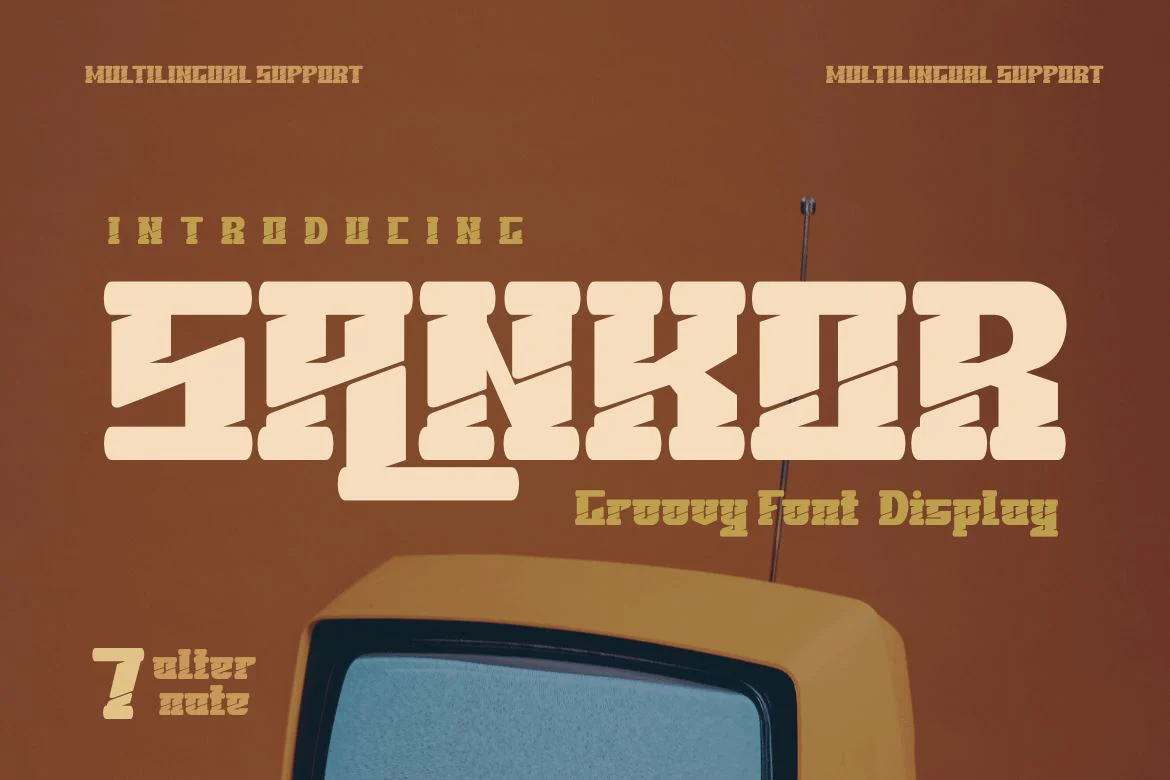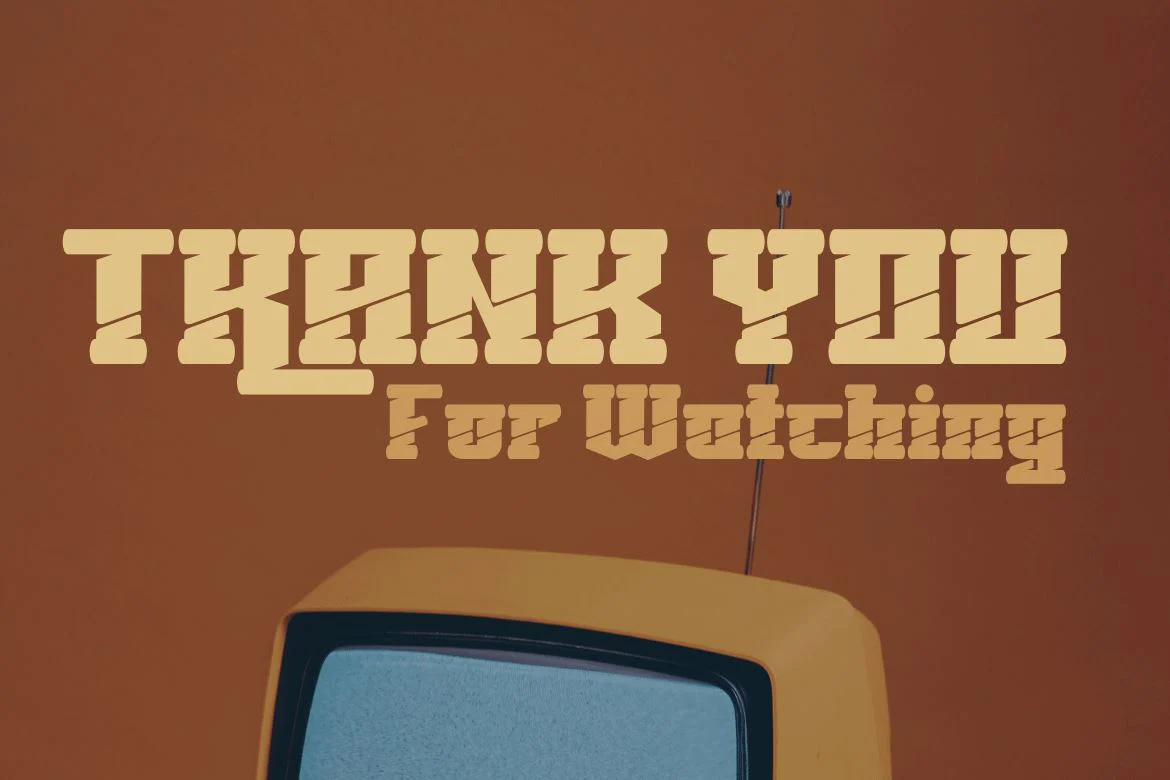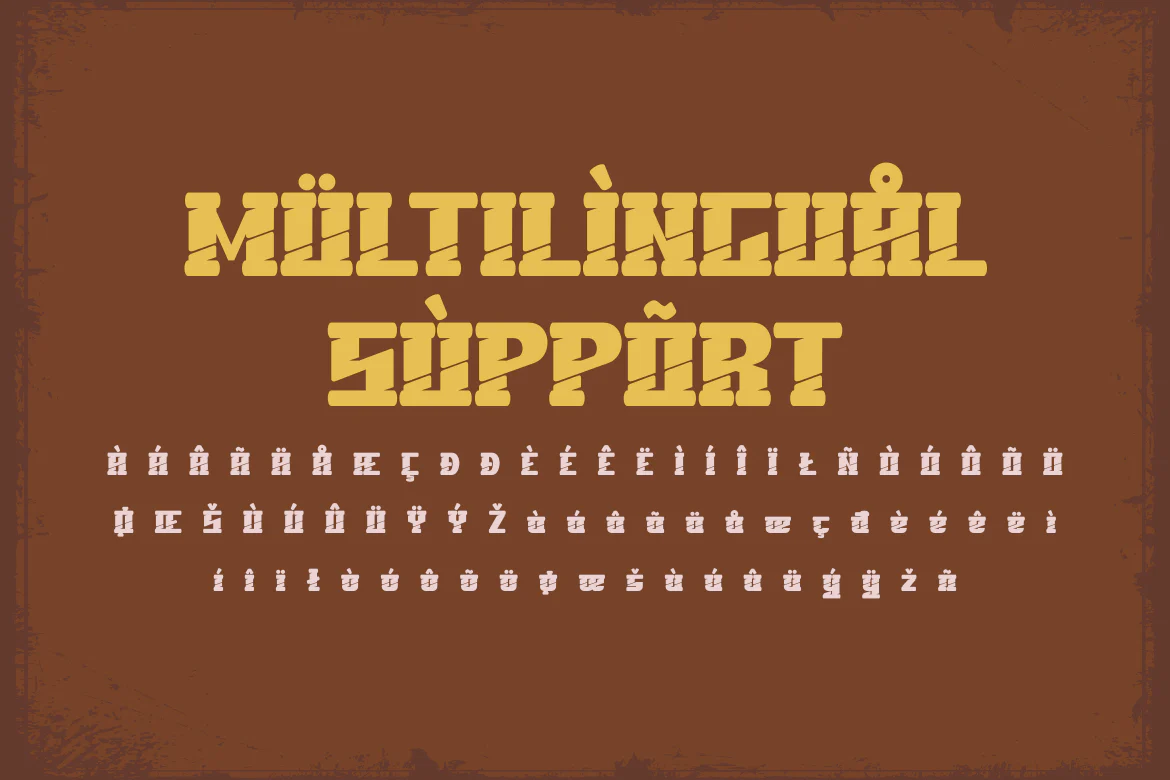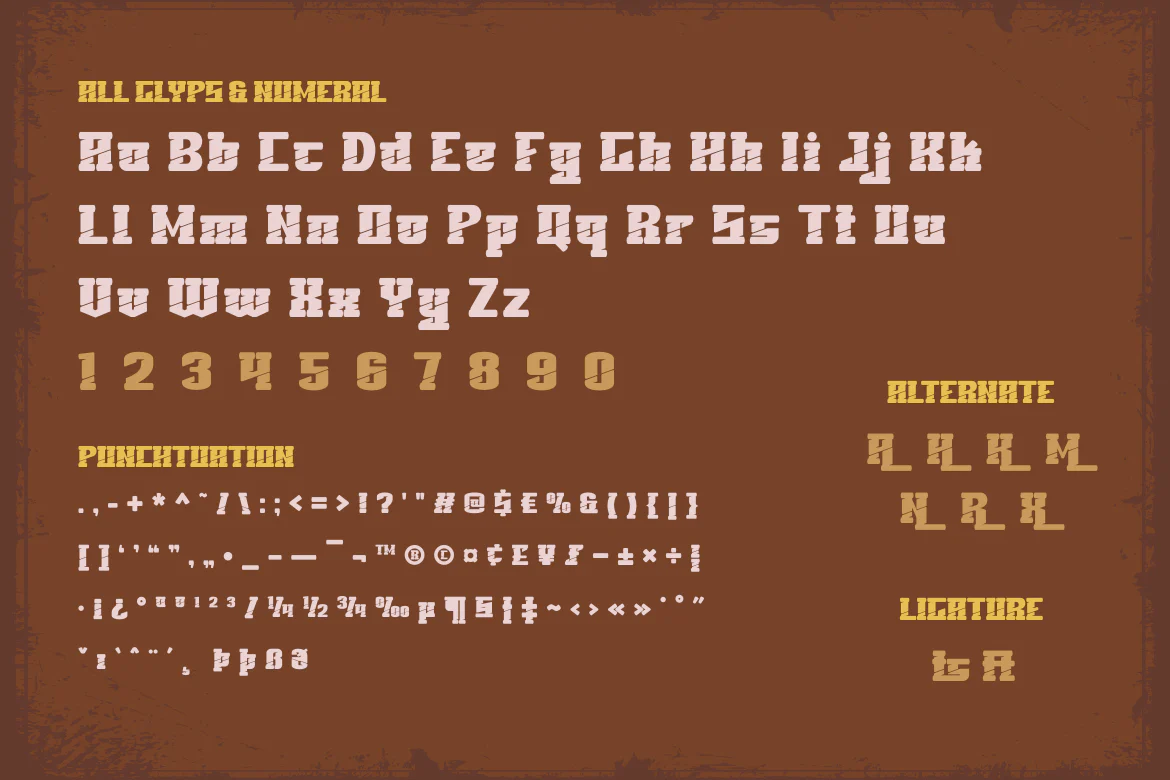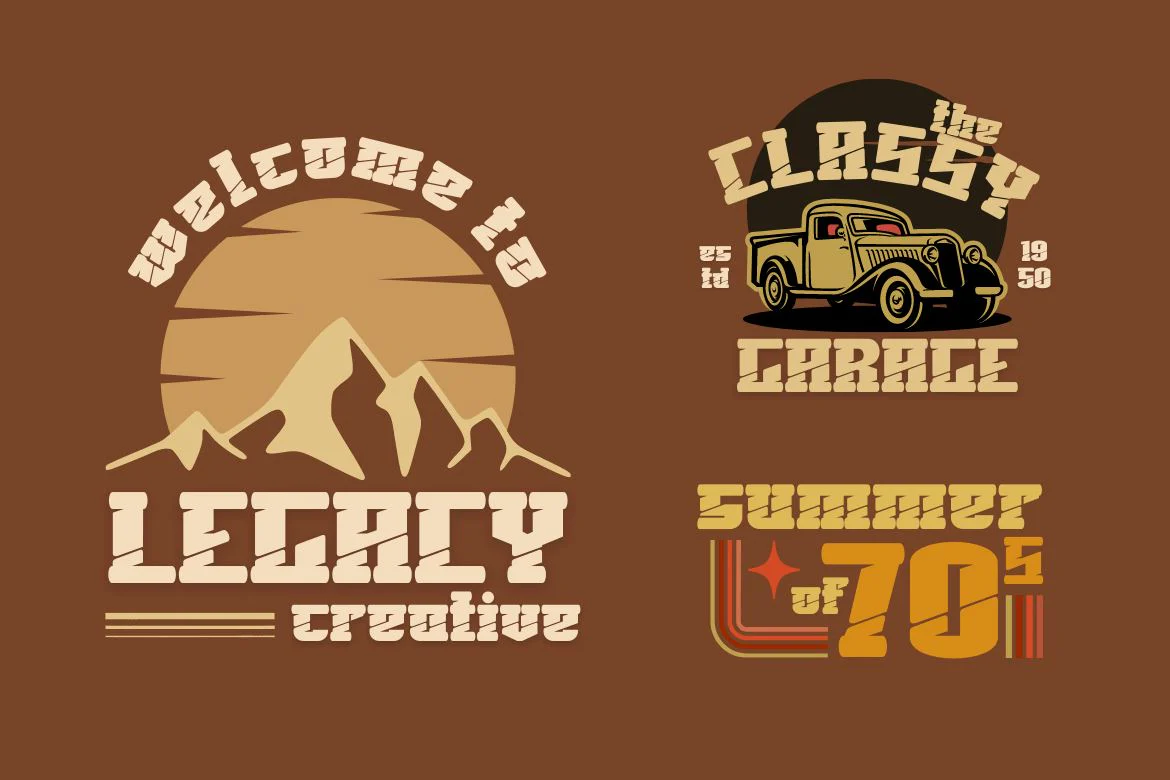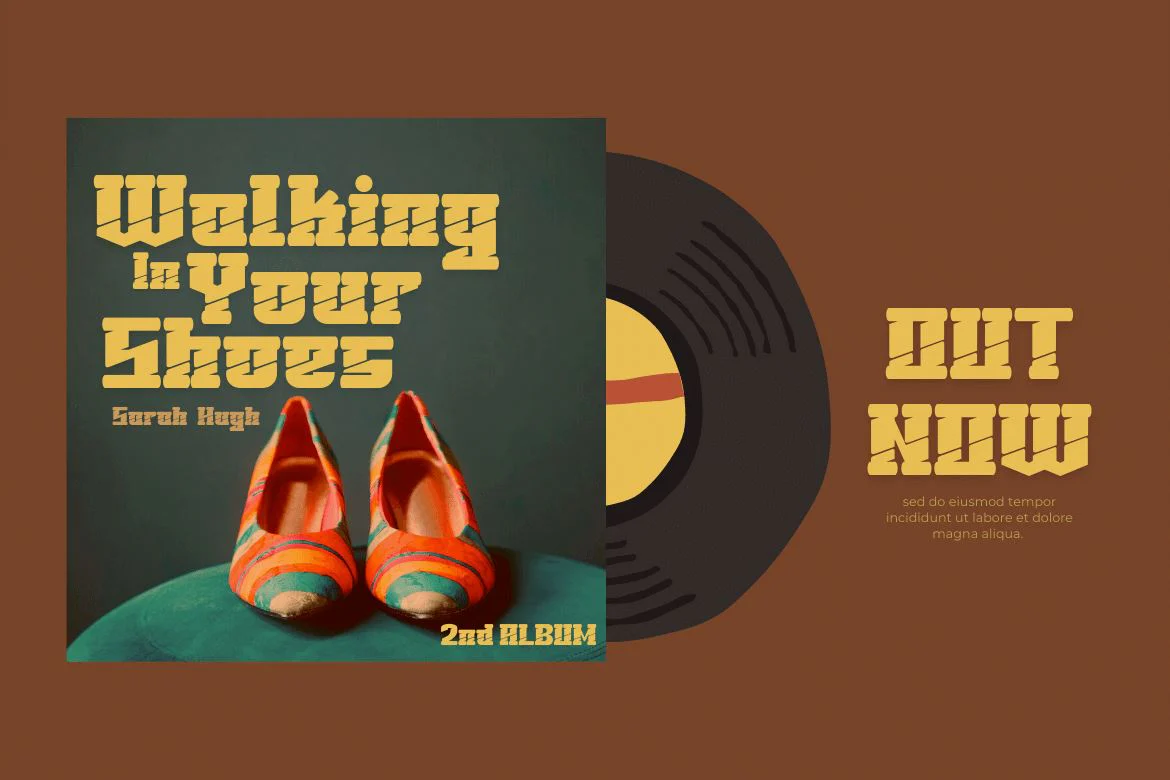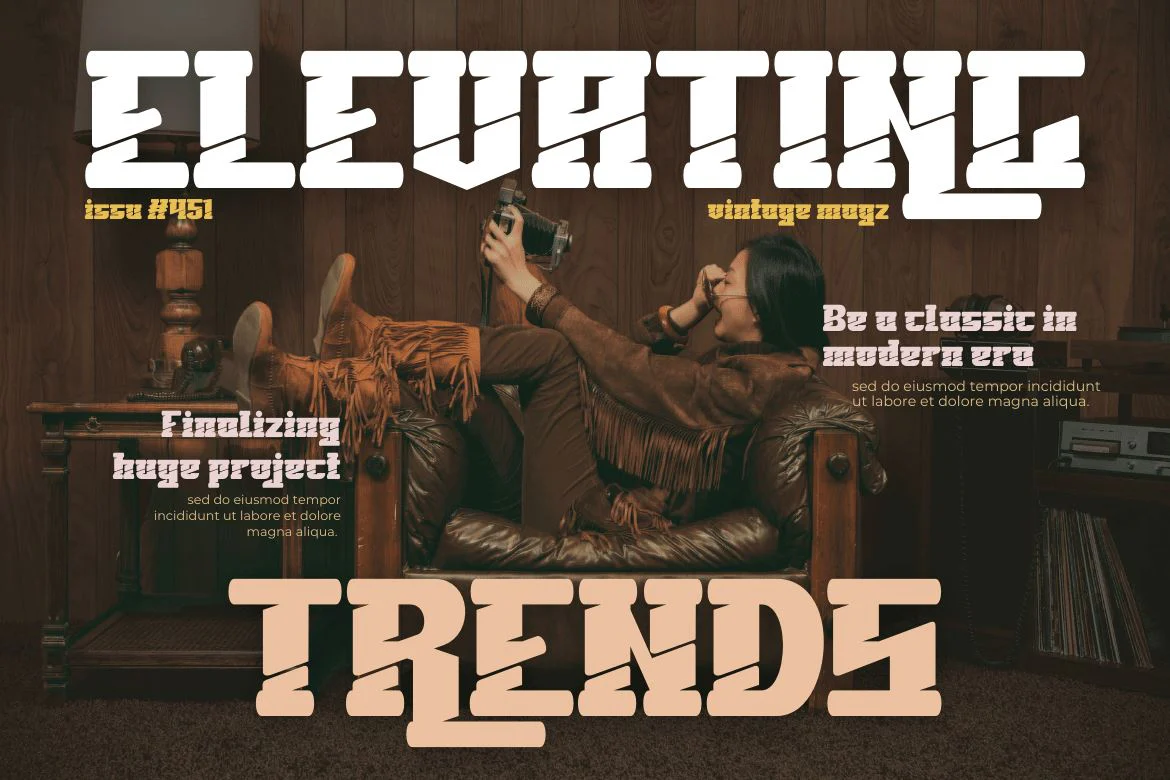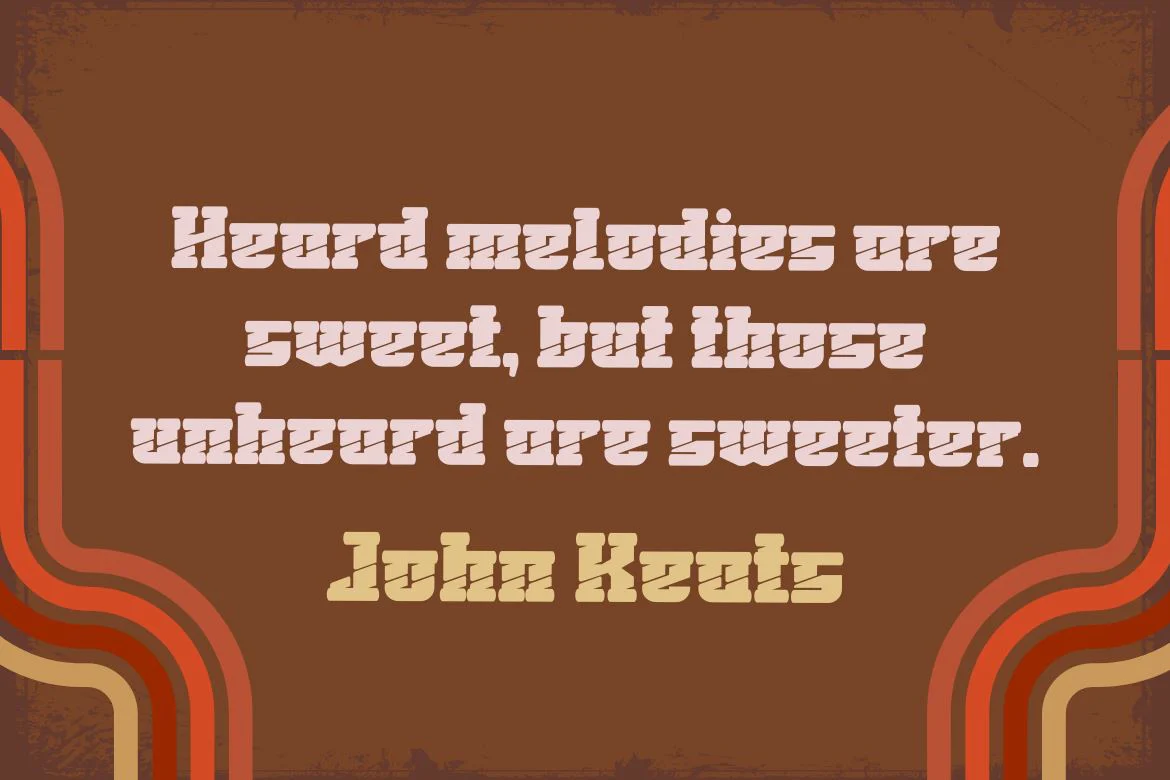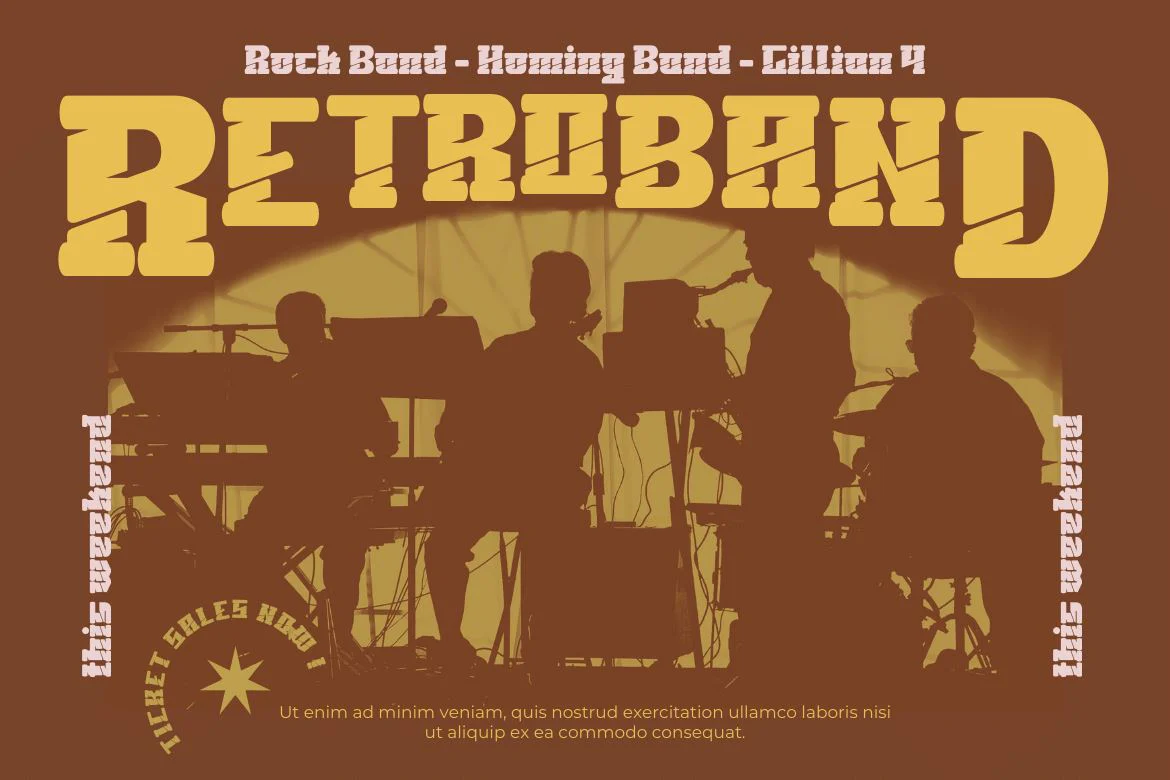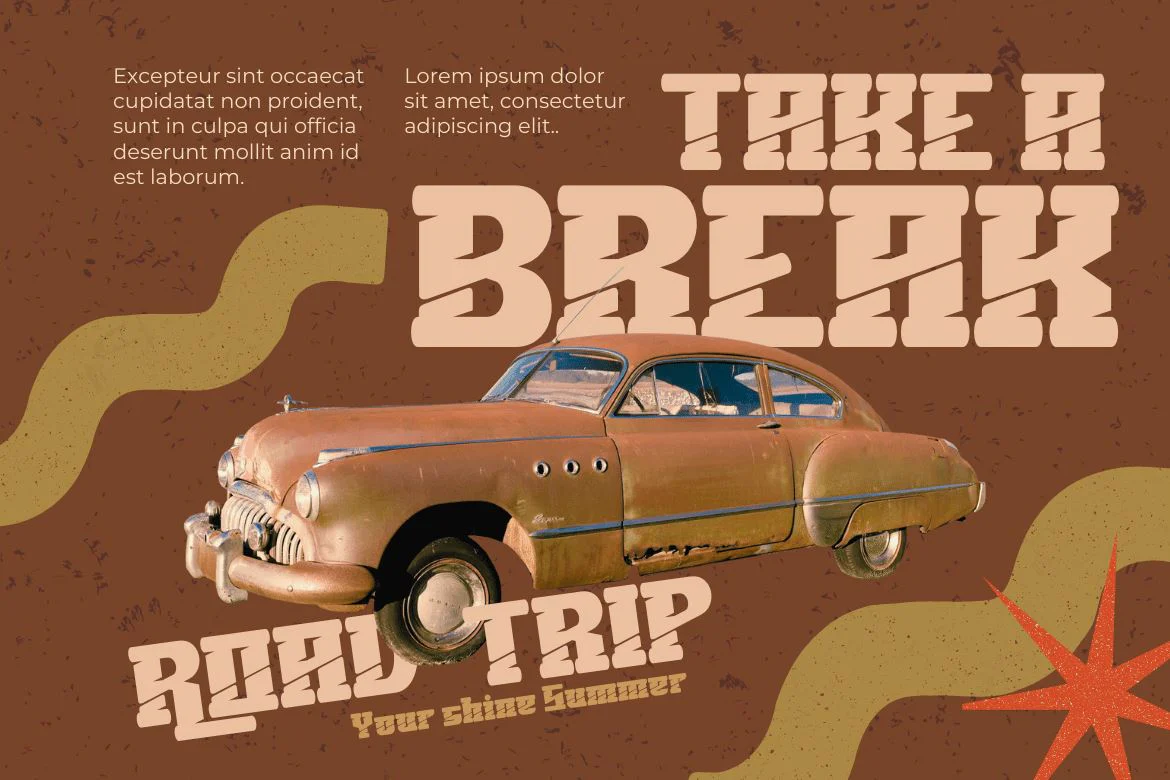
SANKOR | Groovy Retro Font
Introducing the Sankor display font. This font is perfect for any project that needs a modern twist on a classic design. It’s unique, stylish, and fun. Having a bold anatomical shape makes it beautiful and visually unique from most other fonts. Your project can be made more stunning by adding this font.